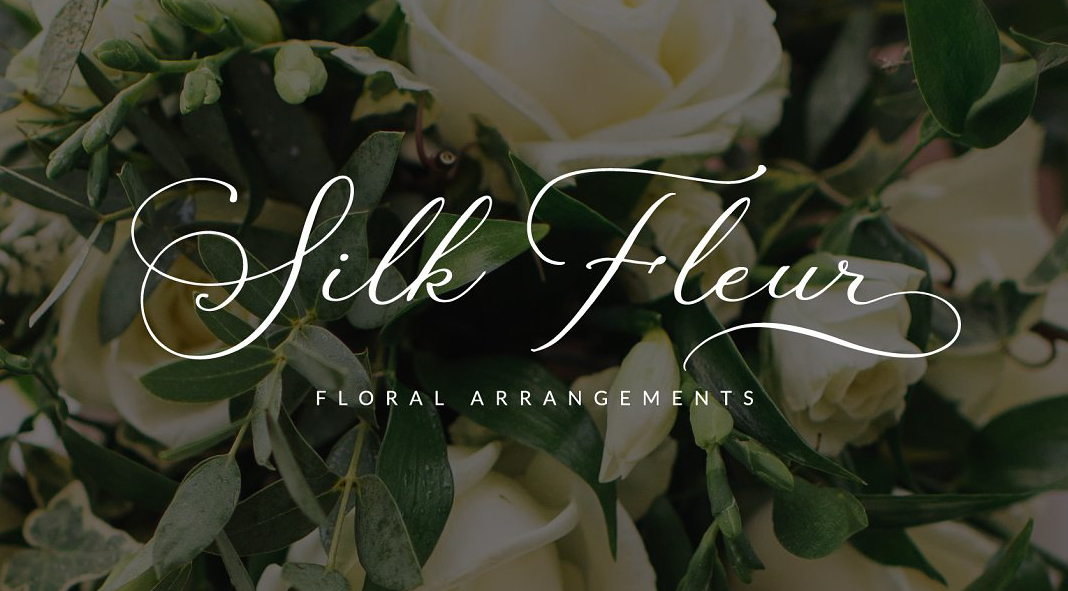
As the name suggests, with this calligraphy script font by Mila Garret you can add a touch of Parisian vintage to your design.
Unlock the beauty of timeless handwriting with Mila Garret’s Parisian Script typeface! This exquisite calligraphy script font was designed to add a subtle yet sophisticated elegance to any logo, wedding invitation, website, greeting card, and more. With its full set of uppercase swash letters and endearing lowercase options – you can craft an unmistakable style that’s sure to leave a lasting impression. Get inspired and add a hint of Parisian chic to your next project with Mila Garret’s Parisian Script!
This typeface will bring a touch of classic charm to your work. The smooth curves, wide strokes, and carefully crafted characters create an eye-catching look that will make your design stand out from the rest. With its versatility and unique features, the Parisian Script font is the perfect typeface to add a timeless touch of style to your project. Get creative with swash letters, ligatures, and other special characters, and make sure your projects have an elegant finish. Impress your clients and customers with Mila Garret’s Parisian Script!